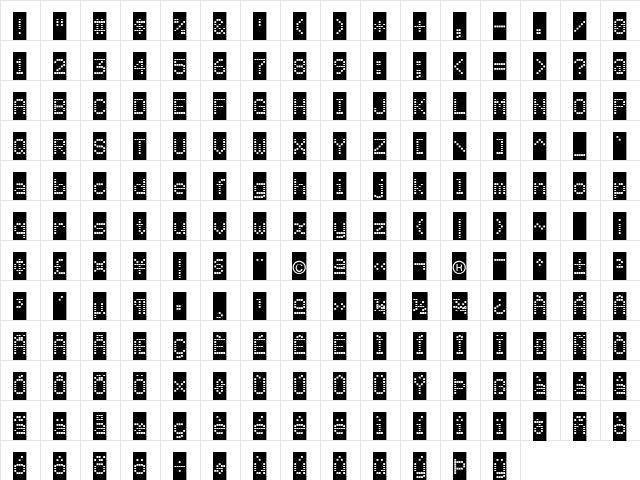
Bubbledot Medium Font Preview
Bubbledot Medium
Design Context for Bubbledot Typeface
Bubbledot celebrates the constraints of early digital type, turning pixel geometry into a distinctive and immediately recognisable style.
Well-suited to indie game interfaces, retro computing aesthetics, and pixel art-adjacent design work.
Pro Tip: Use Bubbledot at sizes that align with its pixel grid for the sharpest rendering — scaling to non-integer multiples can introduce unwanted blur.